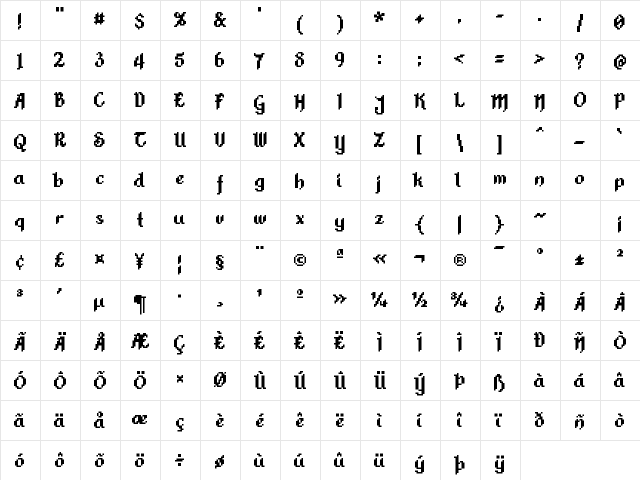
Alkhemikal Medium
Design Context for Alkhemikal Typeface
Alkhemikal is a composed and adaptable typeface that performs quietly and consistently across a wide range of design contexts.
Pro Tip: Use Alkhemikal in both headline and body roles to test its range before committing to a single application.